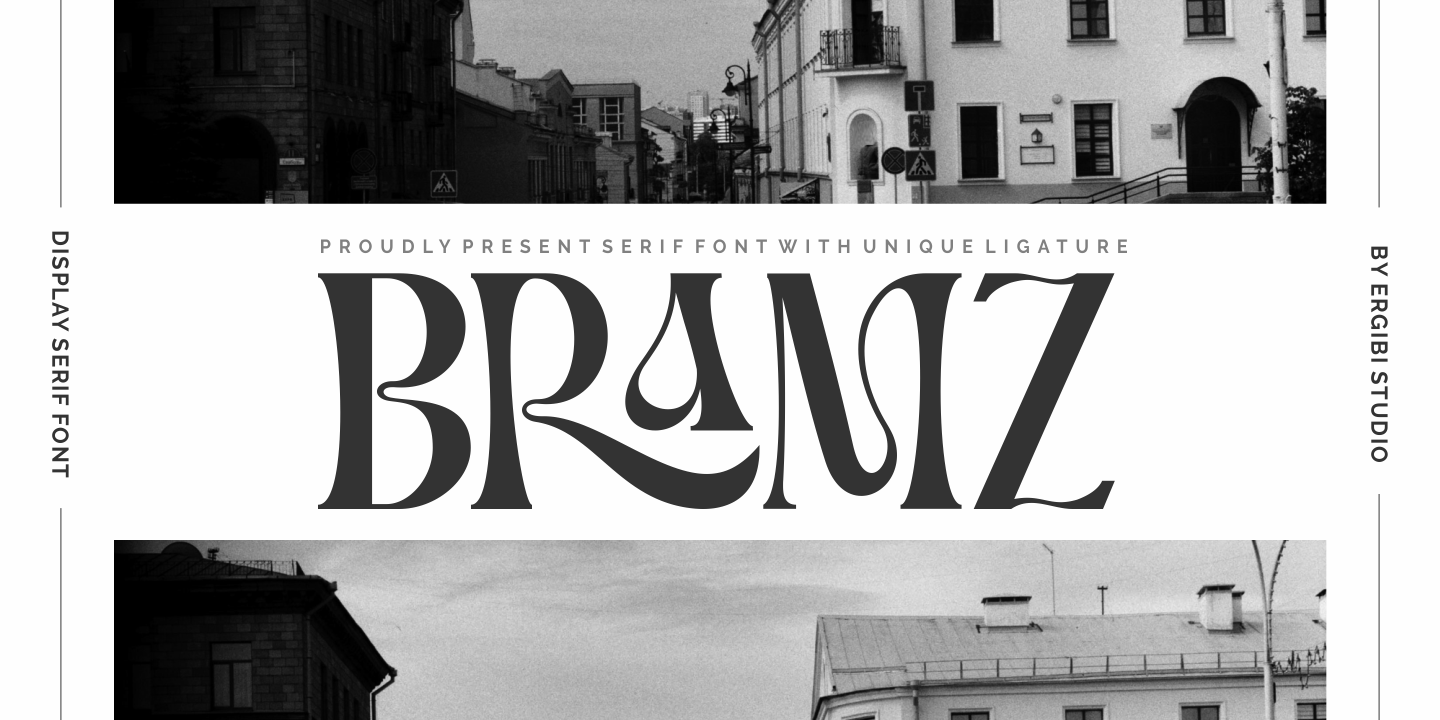
Bramz Font is a vibrant and incredibly playful display typeface, meticulously designed to inject energy and a unique, handcrafted feel into any project. Its distinctive style, often characterized by quirky shapes and an undeniable sense of personality, makes it an ideal choice for designs that aim to be bold, friendly, and memorable. Imagine Bramz Font adorning the branding for a quirky café, bringing a whimsical touch to children's book titles, or creating eye-catching headlines for social media campaigns. This versatile font also shines in areas like poster design for creative events, playful packaging for artisanal products, or any graphic where you want to communicate fun, originality, and a welcoming vibe.
What makes Bramz Font truly exciting is its ability to stand out from the crowd with its charismatic imperfections and lively rhythm. It’s a font that doesn't conform to rigid rules, instead celebrating a charmingly organic and spontaneous aesthetic. Designers are constantly searching for typefaces that can offer such a strong, unique character while remaining highly engaging. Bramz Font delivers precisely this, providing a fresh and delightful option for projects that need to make a statement with a touch of lighthearted creativity. Its distinctive forms are sure to capture attention and leave a lasting impression.
The Bramz Font family typically includes a range of weights and styles, such as Regular, Bold, and possibly a more decorative or outlined variant, offering valuable flexibility for diverse design needs. These variations are essential for designers to establish clear visual hierarchies and maintain a consistent stylistic thread across different elements of a project. Whether you need a captivating headline for a playful advertisement or charming text for a unique product label, the comprehensive choices within the Bramz Font family provide extensive creative freedom. For designs that demand a blend of spirited originality and undeniable charm, be sure to explore Bramz Font Free Download.